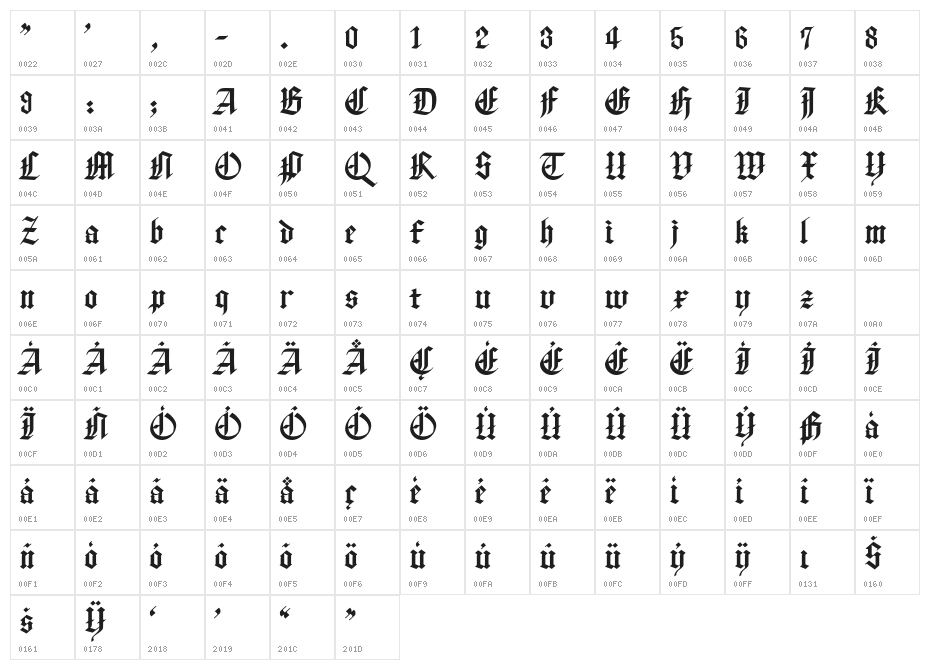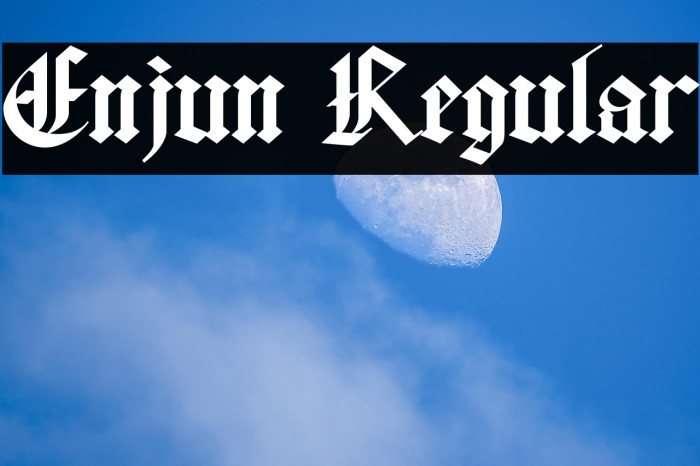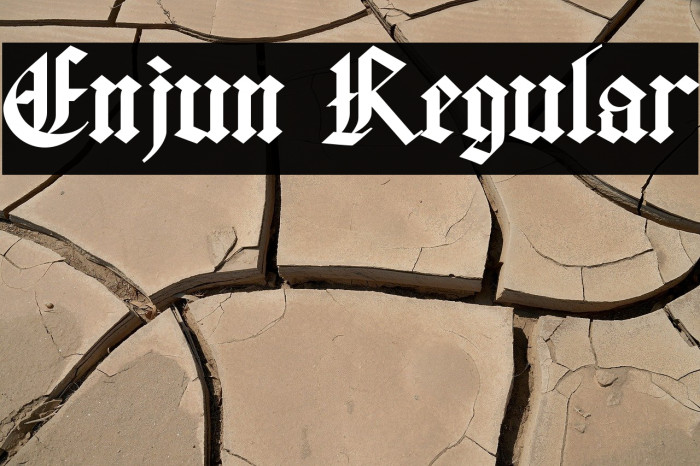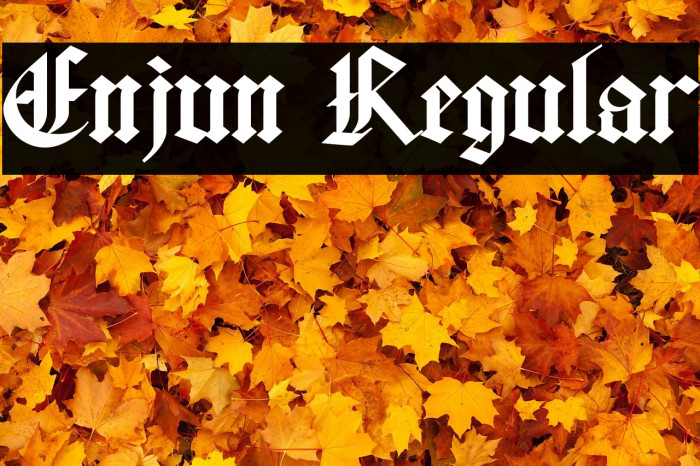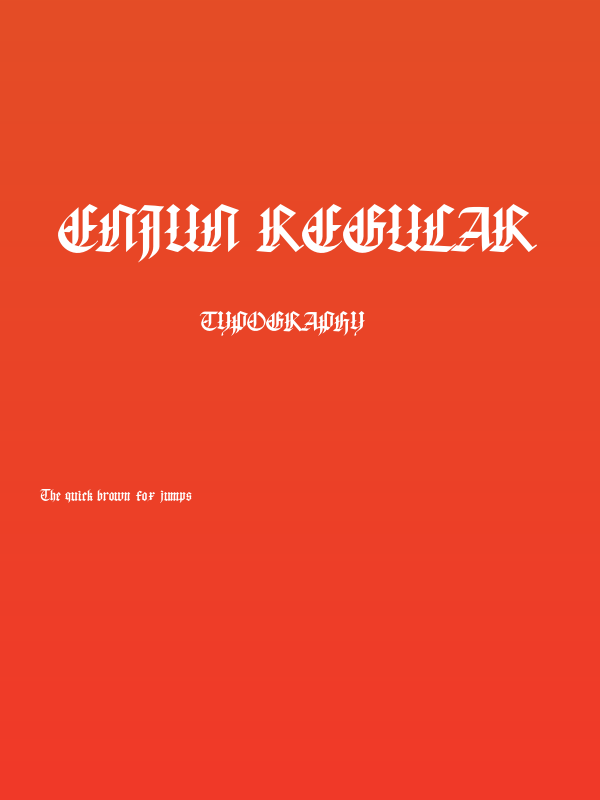
Enjun Regular Font
Enjun Regular Description
This font exudes a classic and traditional aura, reminiscent of medieval script styles. Its intricate and ornate design features sharp, angular lines and elaborate serifs, giving it a distinct Gothic appearance. The uppercase letters are bold and commanding, while the lowercase letters maintain a consistent style with slightly more fluidity. The numbers and special characters are crafted with the same attention to detail, ensuring a cohesive look throughout. This font's dramatic flair and historical essence make it ideal for projects that require a touch of elegance and sophistication.
| Overall Style | Classic |
| Use Case | Logos, Headlines, Decorative text |
| Proposed Projects | Ideal for historical-themed projects, book covers, posters, and branding that requires a classic and elegant touch. |